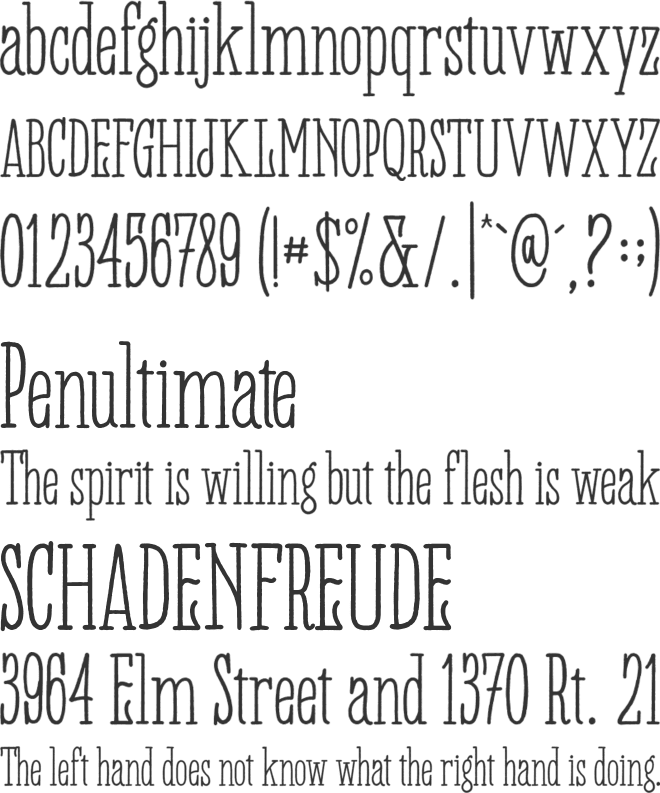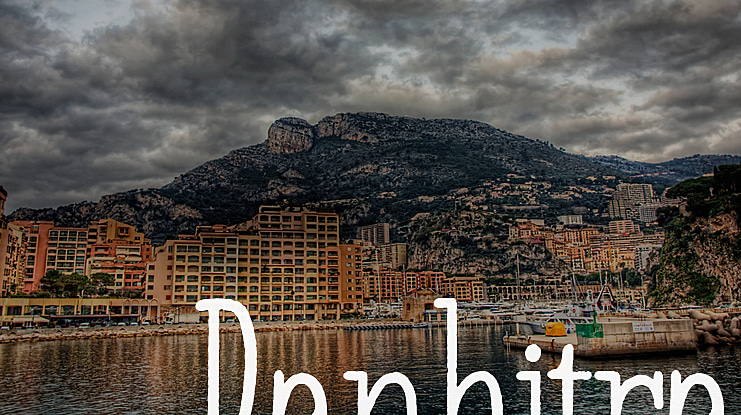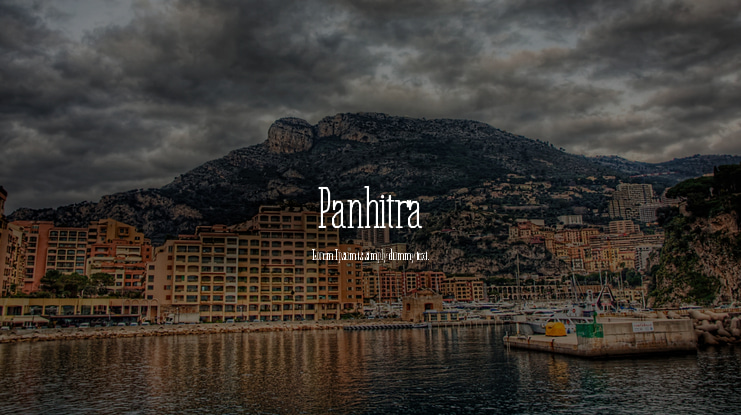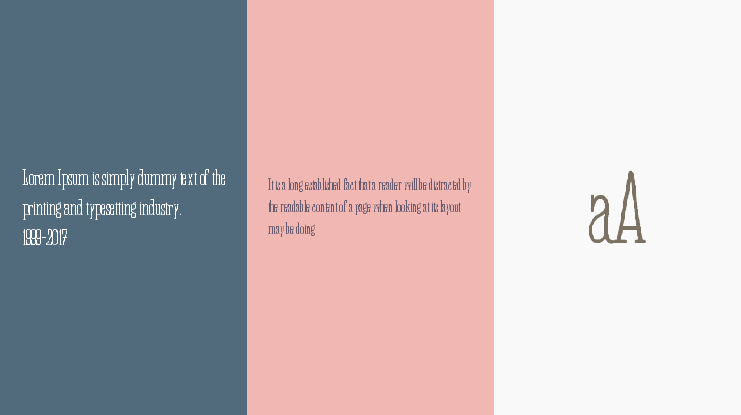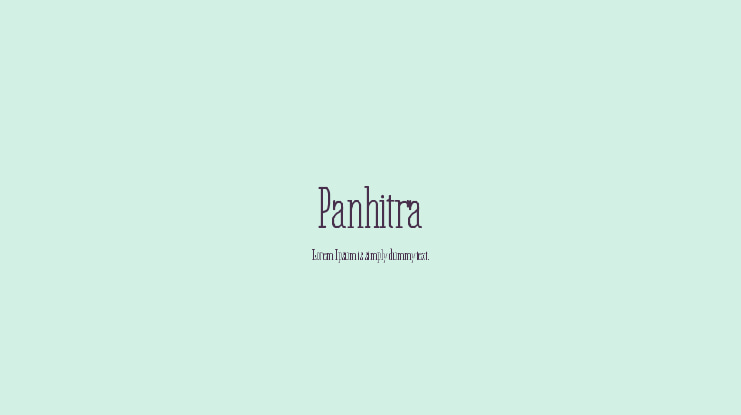
Panhitra Font
Lostvoltype Foundry
panhitra was included 3 fonts that have different styles but perfectly paired when used together. Every single character crafted carefully.